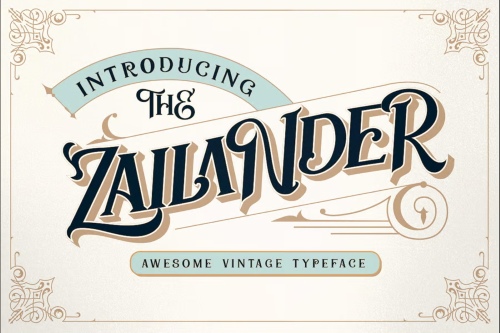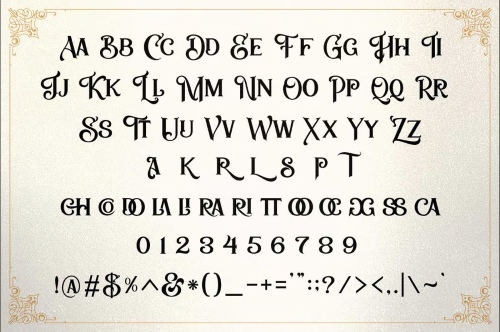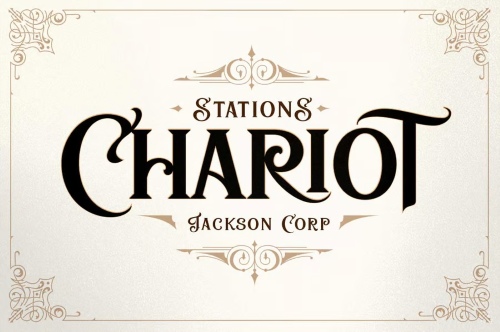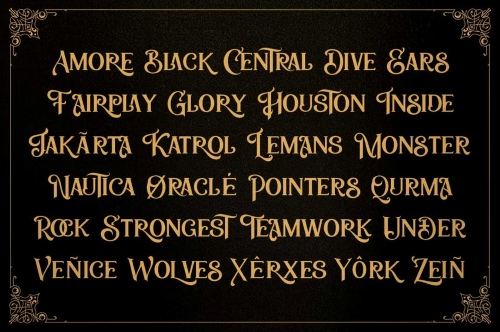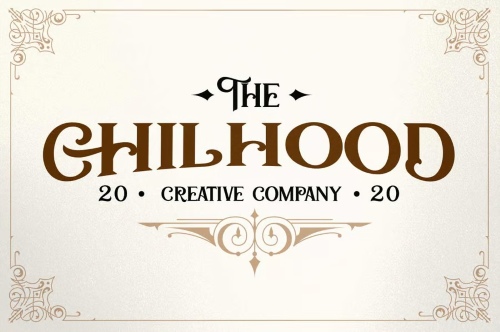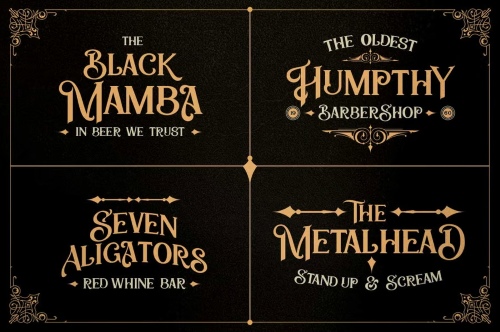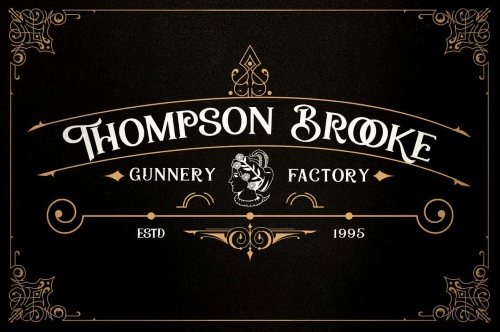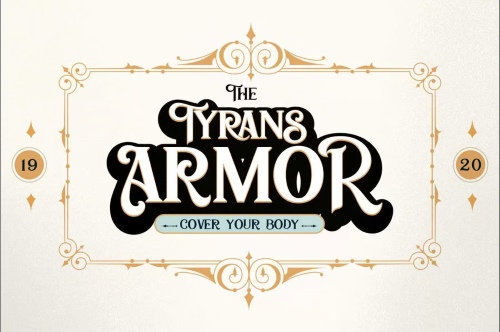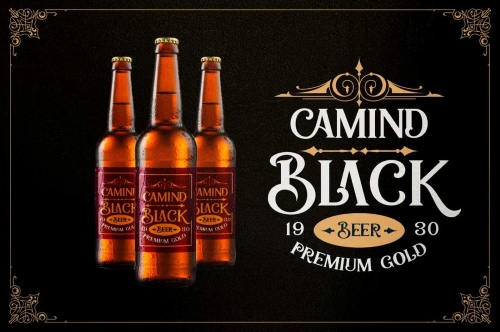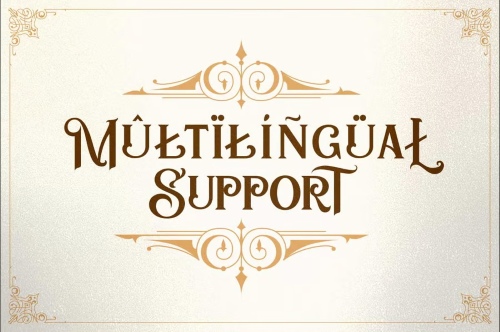
Zailander - Vectorian Vintage Font
- Zailander | Vectorian Vintage Font, So beautiful on invitation like greeting cards, branding materials, business cards, quotes, posters, and more! The alternative characters were divided into several features such as Stylistic Sets, Stylistic Alternates, Contextual Alternate, SWASH and Ligature. The Open Type features can be accessed by using Open Type savvy programs such as Adobe Illustrator, Adobe InDesign, Adobe Photoshop Corel Draw X version, And Microsoft Word. And this Font has given PUA unicode (specially coded fonts). so that all the alternate characters can easily be accessed in full.